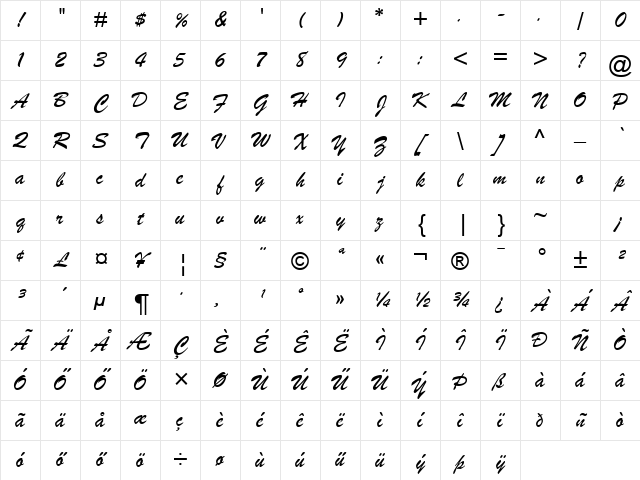
Huni_Brush Regular Free Font
Huni_Brush Regular
Design Context for Huni_Brush
Huni_Brush flows with the natural rhythm of handwritten lettering, making it ideal for designs that call for warmth and personal expression.
Font Pairing: Combine Huni_Brush with a simple geometric sans for maximum contrast - the tension between flowing curves and clean structure is a classic typographic pairing.
Pro Tip: Use Huni_Brush for short runs of text - names, titles, or taglines. Extended body copy in script faces tires the eye quickly.